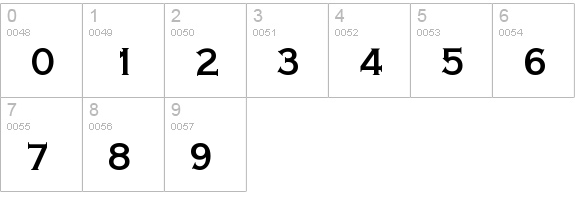
CopperplateTBolCon Font Details
CopperplateTBolCon font is a timeless and elegant typeface that exudes sophistication and professionalism. With its classic serif design and bold weight, it commands attention and adds a touch of refinement to any project or design. What sets CopperplateTBolCon font apart is not only its versatility but also its accessibility. This premium font is available for free download at FontsMarket.com, making it easy for designers and creators to incorporate this stylish typeface into their work without breaking the bank. Whether you're working on a branding project, a logo design, or a printed piece, CopperplateTBolCon font is sure to elevate your work and leave a lasting impression. Download it today and add a touch of class to your next project!